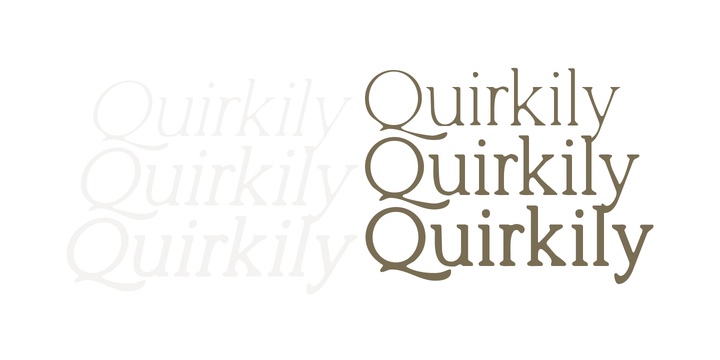
Quirkily Font
Quirkily Font is perfect for playful children's brands, creative toy packaging, whimsical café signage, fun greeting card designs, quirky app interfaces, imaginative book covers, cheerful social media graphics, eccentric boutique branding, and entertaining marketing campaigns.
What makes Quirkily Font exciting is its delightfully unconventional character shapes combined with irresistible personality that instantly brings joy and smiles to any design project. The font's charming irregularities and endearing imperfections create authentic handcrafted appeal that resonates with audiences seeking genuine human connection and creative expression over corporate sterility, making it the perfect choice for brands embracing individuality and fun.
Quirkily Font family includes regular and bold weights with playful alternates, whimsical decorative elements, and contextual variations that enhance the font's distinctive personality, providing comprehensive design solutions for creating memorable brand experiences and engaging creative communications.
This enchanting typeface embodies pure creative joy and authentic artistic expression in every lovingly crafted letterform. Quirkily Font Free Download offers designers and creative businesses an extraordinary opportunity to infuse their projects with genuine warmth and personality that creates emotional connections with audiences. Whether you're developing children's educational materials, designing independent creative brands, or crafting engaging digital content, this font family delivers the unique character needed to stand out in crowded markets.
The carefully balanced quirkiness ensures optimal readability while preserving the font's distinctive charm, making it suitable for both attention-grabbing headlines and extended text applications. International character support enables global creative projects.
Quirkily Font distinguishes itself through its perfect harmony of professionalism and playfulness, proving that serious design work can embrace creativity and humor simultaneously. This remarkable typeface transforms ordinary messages into memorable experiences that make audiences smile, making it an invaluable tool for brands understanding that emotional engagement drives successful communication and customer loyalty.